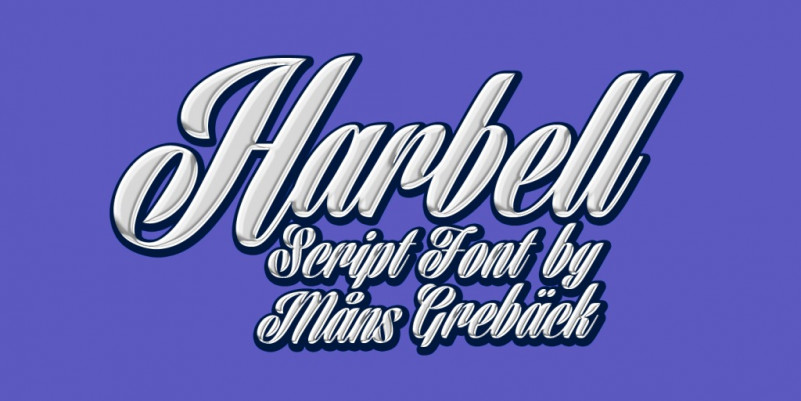
Harbell Font
Harbell Script Font is a font with a script style combined with thick calligraphy style, this font is designed for brochure design, brand names, sentence quotes, wedding invitations, business cards and many more.